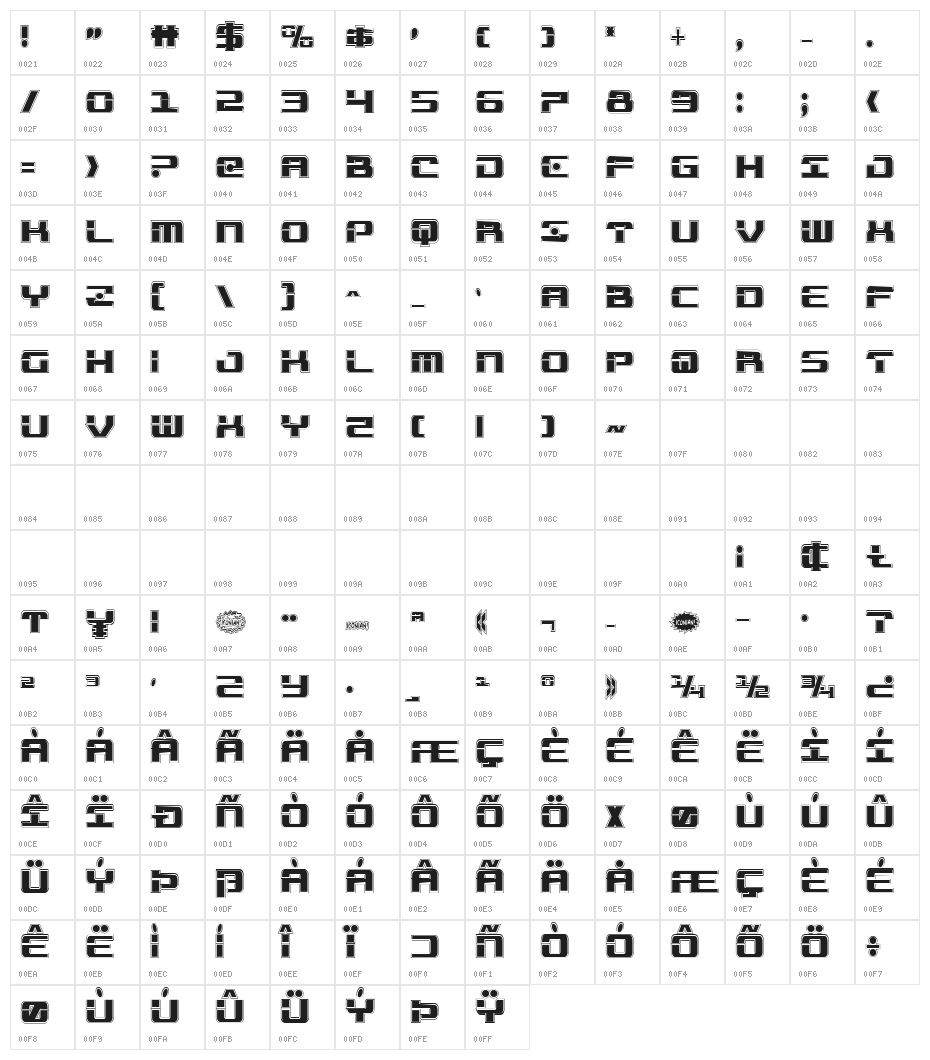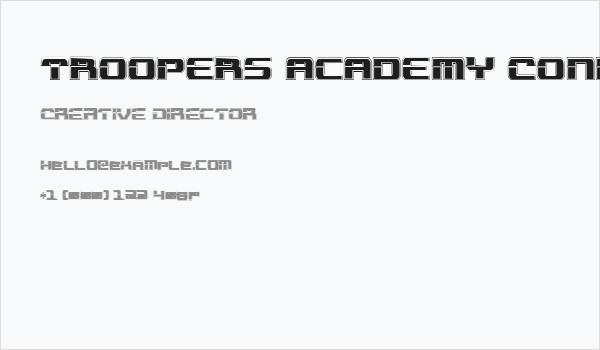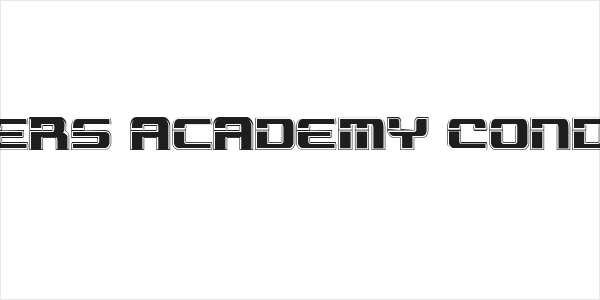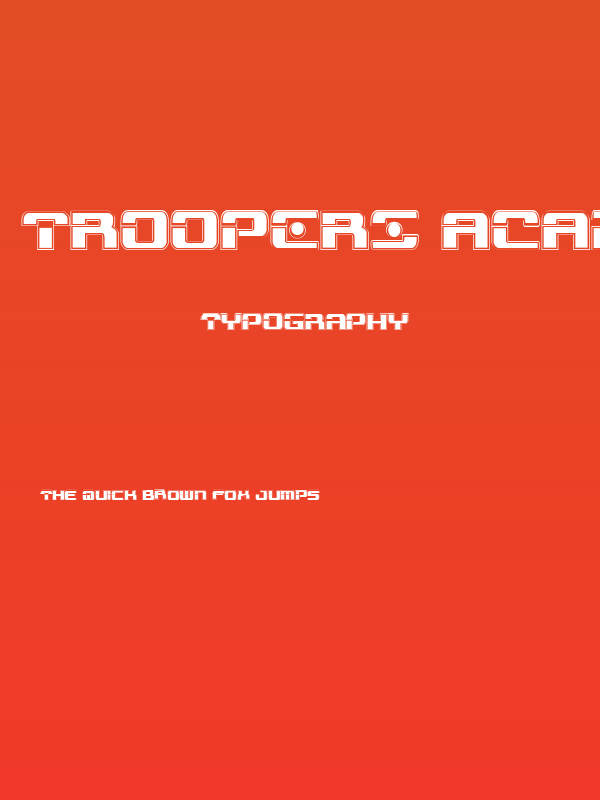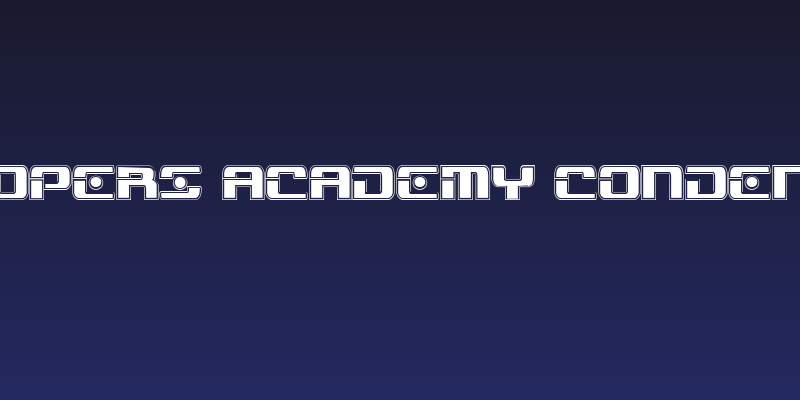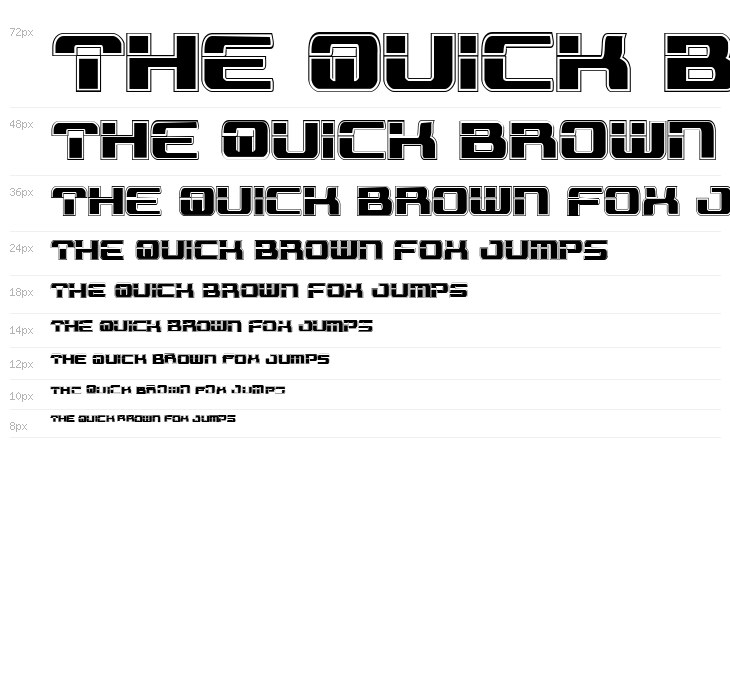
Troopers Academy Condensed Font
Troopers Academy Condensed Description
This font features a bold, futuristic design with a condensed structure, characterized by its geometric shapes and sharp edges. The letters are enclosed within a thick outline, giving them a three-dimensional appearance. The style is reminiscent of digital or sci-fi themes, making it ideal for projects that require a modern and tech-oriented look. The uppercase and lowercase letters maintain a consistent design, while the numbers and special characters complement the overall aesthetic with similar boldness and structure.
Overall StyleFuturistic
Proposed ProjectsIdeal for sci-fi themed posters, video game titles, tech branding, and futuristic event invitations.